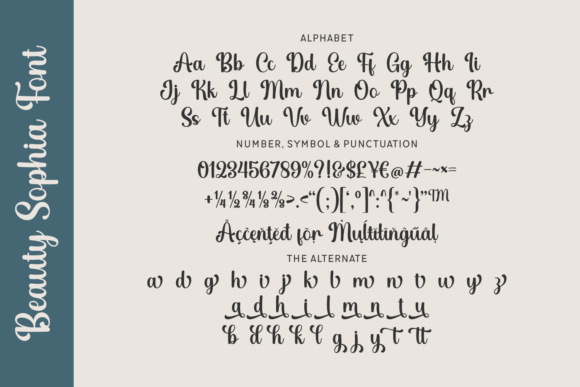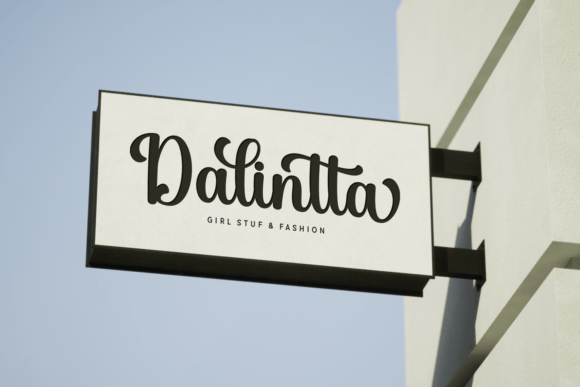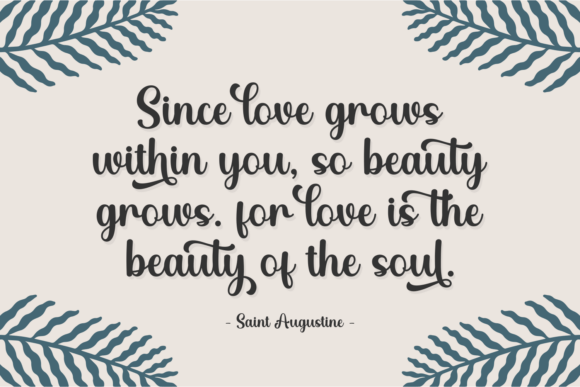
Find Your Perfect Font: Unveiling the Beauty of Beauty Sophia Font
There’s something special about creating something beautiful with just a few strokes of a pen. Maybe it’s the way the ink flows onto the paper, or the smile that spreads across your face as you see your design come to life. Whatever it is, it’s that spark of creativity that drives us to keep pushing the boundaries of what’s possible.
For designers, finding the right font can be the key to unlocking that magic. That’s where the Beauty Sophia Font comes in – a charming and stylish script font that’s perfect for adding a touch of elegance and warmth to any project. With its bold, flowing letters, Beauty Sophia Font is a valuable addition to any designer’s toolkit, especially when it comes to creating invitations, greeting cards, and other projects that require a personal touch.
Beauty Sophia Font Key Features
- Unique Characteristics: The Beauty Sophia font features a unique blend of elegance and sophistication, with subtle curves and lines that evoke a sense of refinement and luxury.
Beauty Sophia Font Review
As a designer, I was excited to try out the Beauty Sophia font. I’ve seen it used in various designs and thought it would be a great addition to my typography collection.
- Unique and elegant design – Beauty Sophia has a distinctive feel that’s perfect for high-end designs.
- Good legibility – The font is clear and easy to read, even at smaller sizes.
- Neutral tone – It works well for both modern and traditional designs.
- Limited character set – Beauty Sophia doesn’t have a large character set, which may limit its use in certain situations.
- Not ideal for body text – While it works well for headings, it’s not the best choice for body text due to its elegance and formality.
Beauty Sophia is a beautiful font that shines in the right situations. Its elegance and unique design make it perfect for high-end designs, but it may not be the best choice for everyday use. If you’re looking for a font to add a touch of sophistication to your designs, Beauty Sophia is definitely worth considering.
Getting the Most Out of Beauty Sophia Font
For optimal results, use the Beauty Sophia Font in a serif or script setting to add a touch of elegance and sophistication.
Experiment with different font sizes and styles to create visual interest and balance.
Combine the Beauty Sophia Font with other fonts to create a unique and eye-catching design.
The Beauty Sophia Font is ideal for:
Formal event materials (e.g. programs, menus)
High-end product packaging and branding
Magazine and newspaper articles